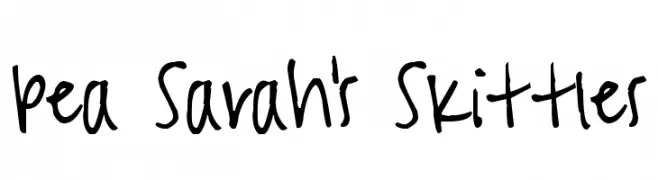
A casual, handwritten font with a playful and informal style.
A playful, casual handwritten font with uneven strokes and a personal touch.
A casual, handwritten font with playful and irregular strokes.
A playful, informal handwritten font with uneven strokes and a lively appearance.
A playful, casual handwritten font with a whimsical style.
A playful, casual handwritten font with an organic, lively style.
A playful, handwritten font with bold, irregular strokes and a casual vibe.